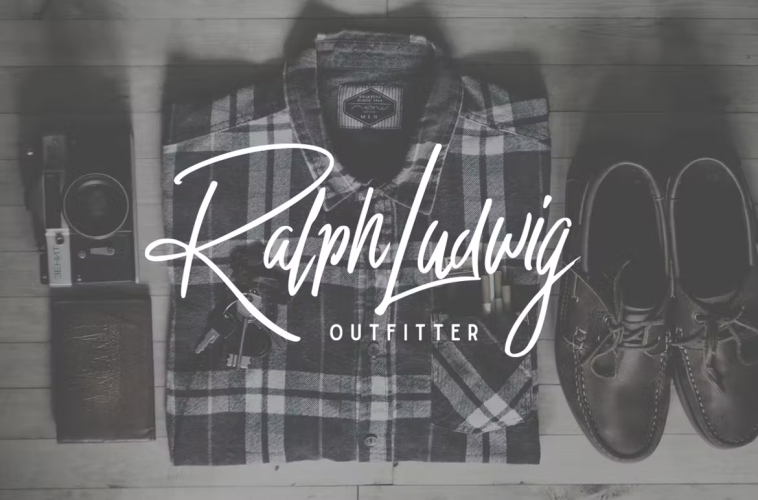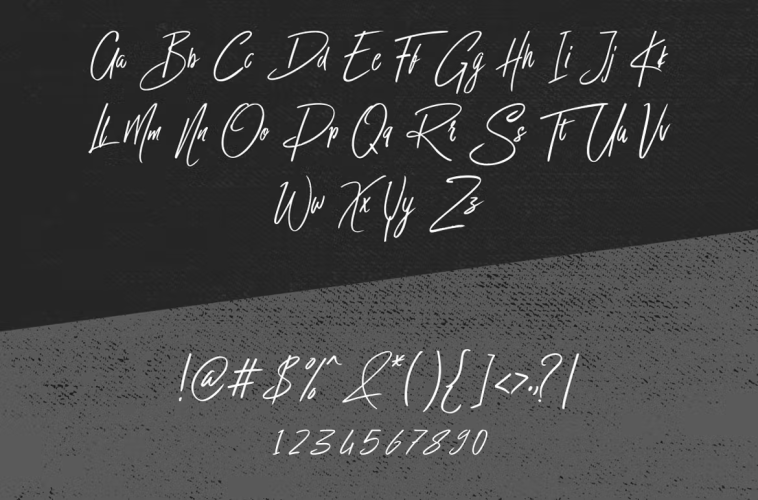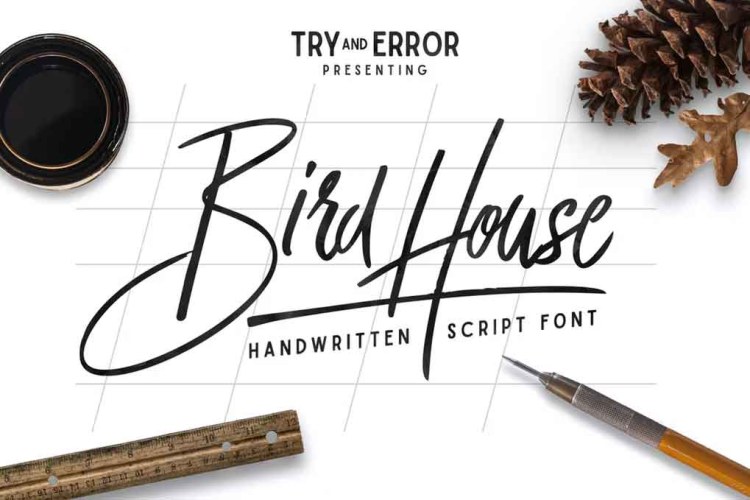
Bird House Script Font
Bird House Script is a handwritten font designed using markers. This font perfect for branding, signature, and more. It includes uppercase standard character, punctuation and multiple language support.
Where Bird House Script Font works best
A short phrase in Bird House Script Font carries warmth that a typeset sans cannot fake; keep the rest of the card plain.
Chalkboard-style headings in Bird House Script Font make a menu feel hand-made. Keep the dish descriptions in a simple face so prices stay readable.
One line of Bird House Script Font over a photo is enough; the script carries the tone and the caption does the work.
What kind of work does Bird House Script Font suit?
It sits in the Script And Handwritten group and reads as branding, handwritten, script, script and handwritten. That makes it a candidate wherever those qualities help: headings, packaging, social graphics and brand work. Set it at the size you plan to use before deciding.